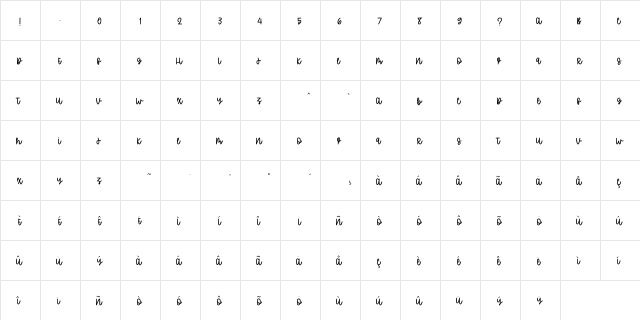
JUMPKiDS Regular
Design Context for JUMPKiDS Typeface
JUMPKiDS trades formality for fun, with bouncy, characterful letterforms that bring warmth and energy to any project.
Font Pairing: Pairs well with a rounded or humanist sans for body copy, maintaining the friendly tone without relying on JUMPKiDS to carry extended reading.
Pro Tip: Avoid using JUMPKiDS for long passages of text — it works best for headlines, labels, and short calls to action.